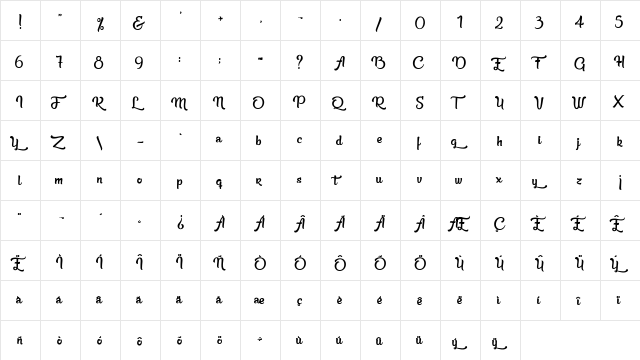
Beauty in the Ordinary Bold
Design Context for Beauty in the Ordinary Typeface
Beauty in the Ordinary is a composed and adaptable typeface that performs quietly and consistently across a wide range of design contexts. The heavy weight commands attention and anchors typographic hierarchies.